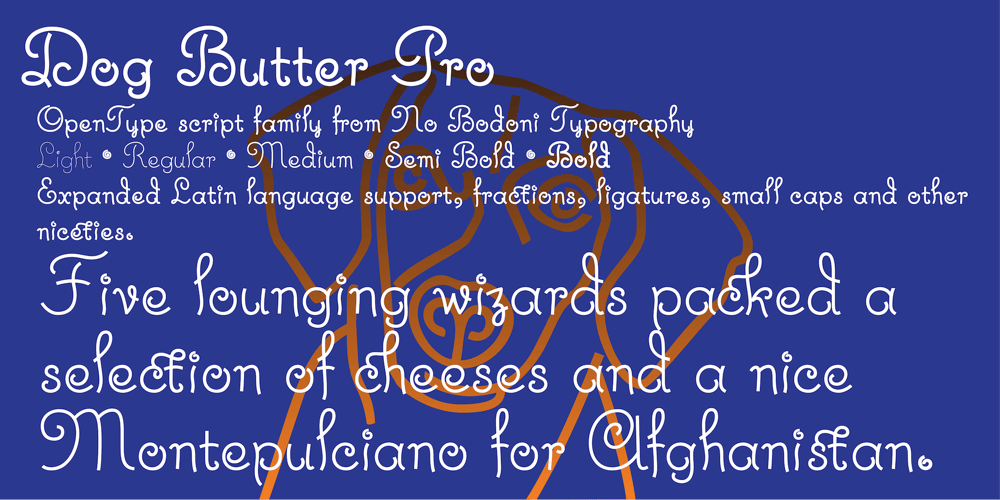
Dog Butter Pro Font Family was designed by George E. Thompson and published by No Bodoni. Dog Butter Pro contains 5 styles and family package options. This is a curvaceous playful casual upright display script (the name inspired by Tibetan yak butter) and is unique due to the tall ascenders and cap heights combined with a small x-height and small cap height. Due to these variations I designed different heights of quote marks for visual consistency.There are five weights and multi Latin language support. This font is perfect for lingerie catalogs, gorgeous cookbooks, curvaceous branding and logo design, callipygian magazine heads, sumptuous restaurant and food designs, flamboyant word poetry and more.